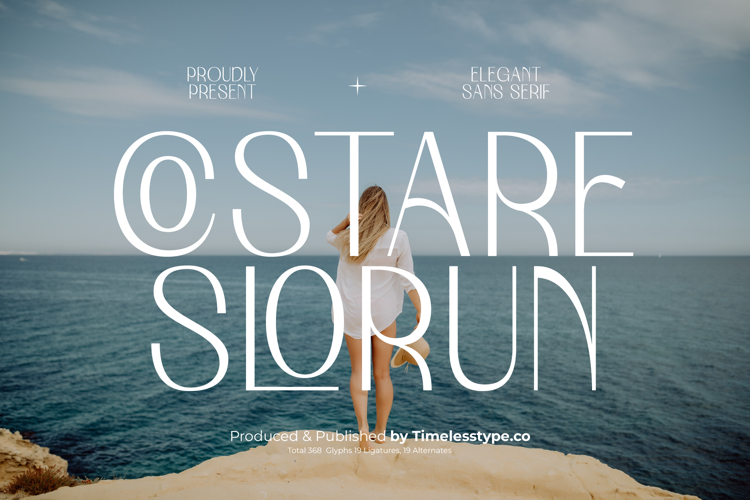
Costare Slorun - Elegant Sans Serif Font
Discover unparalleled sophistication with Costare Slorun - Elegant Sans Serif Font, a typeface meticulously designed to infuse your projects with a touch of modern elegance. Its distinct presence merges clean, expansive lines with subtly fluid curves, creating a visual harmony that speaks of luxury and professionalism. This font is perfect for designers aiming to convey an impression of refined style and understated grandeur in their visual communications.
Crafted with meticulous precision, Costare Slorun - Elegant Sans Serif Font features high-contrast strokes and balanced proportions that ensure exceptional readability and visual impact across various scales. The wide letterforms and thoughtful spacing contribute to an airy, open feel, making it an incredibly versatile choice. Its comprehensive character set, including 368 glyphs, 19 ligatures, and 19 alternates, offers rich creative flexibility for diverse design needs.
Elevate your brand presence across all mediums. Costare Slorun - Elegant Sans Serif Font is the ideal companion for luxury branding, high-end editorial design, fashion magazines, sophisticated packaging, and distinctive apparel. It transforms ordinary text into a statement of uncompromising quality and contemporary style, making it perfect for influential headlines, elegant logos, and stylish invitations that demand attention.